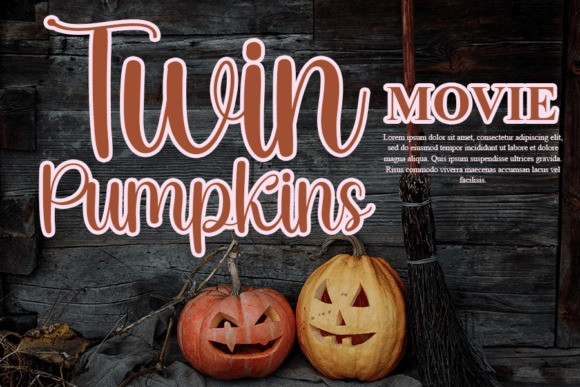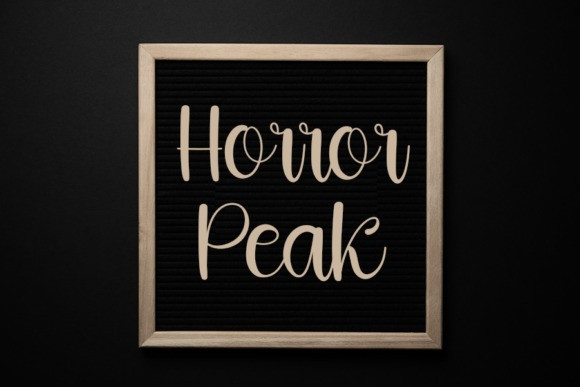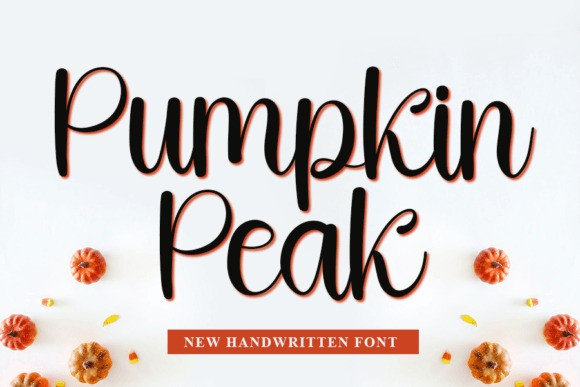
Pumpkin Peak Font
Pumpkin Peak Font is a beautiful and refined handwritten font. Classy and modern, it is perfect for logos, branding, invitations, stationery, wedding designs, social media posts, and much more!